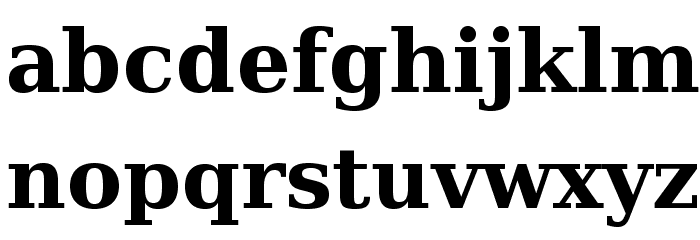
Verana-Bold Font
This font presents a bold and commanding presence with its strong, thick strokes and classic serif design. The characters are well-defined with a consistent weight throughout, providing a sense of stability and reliability. The serifs are pronounced, adding a touch of elegance and tradition to the overall appearance. The uppercase letters are tall and imposing, while the lowercase letters maintain a balanced and harmonious look. Numbers are clear and easily distinguishable, making them suitable for various applications. The special characters are crafted with precision, ensuring they complement the rest of the typeface seamlessly.
A bold serif font with strong, thick strokes and classic elegance.
- Proposed Projects: Ideal for headlines, book covers, branding, and editorial design where a strong and traditional serif typeface is desired.
- Overall Style: Classic
- Use Case: Headlines, Logos, Editorial design